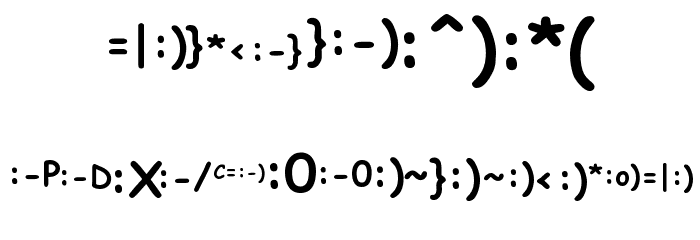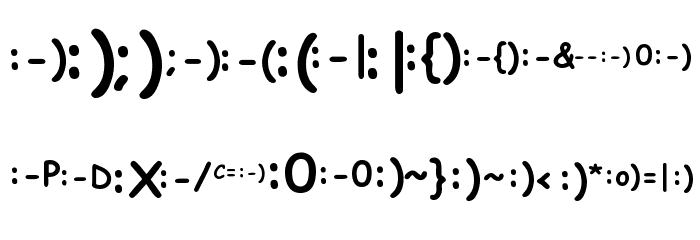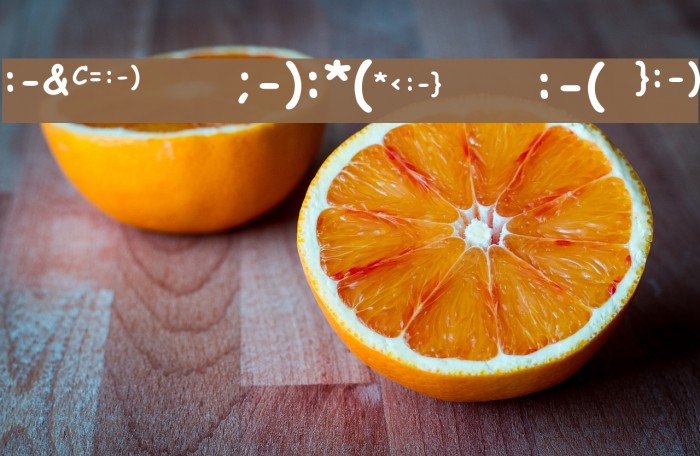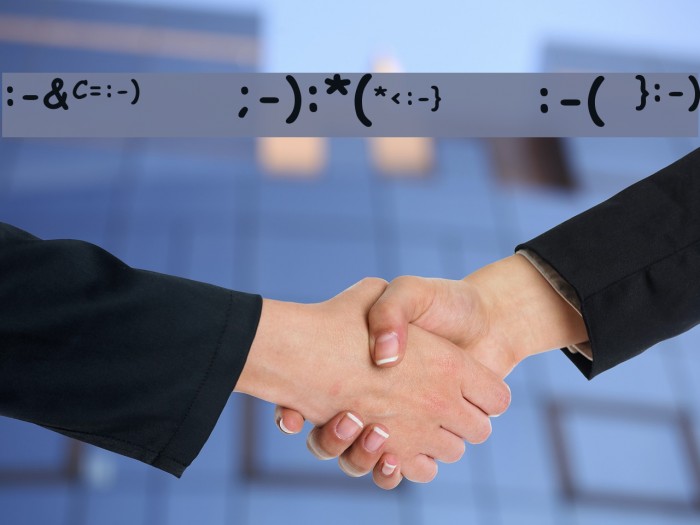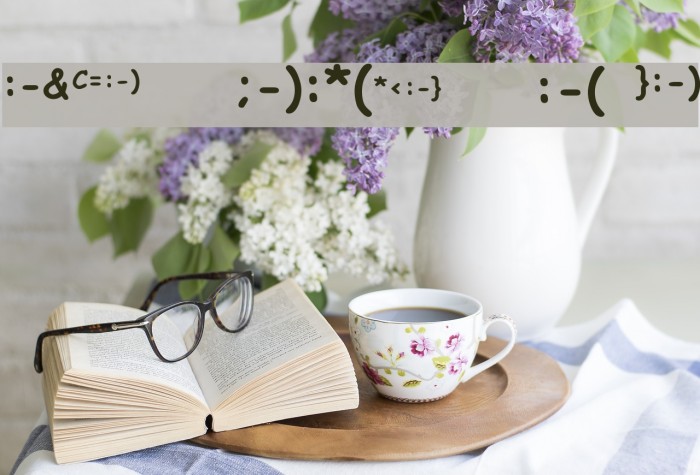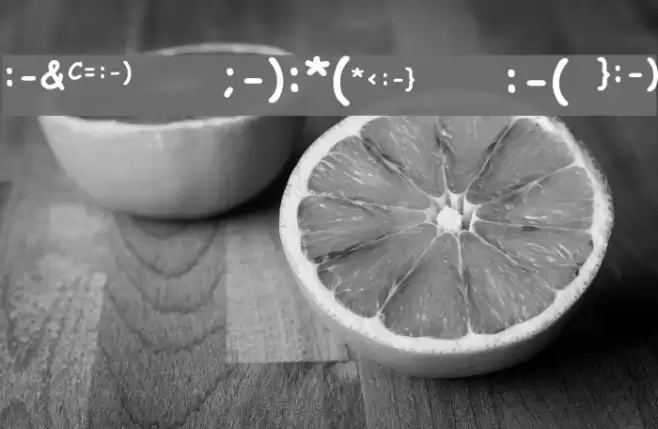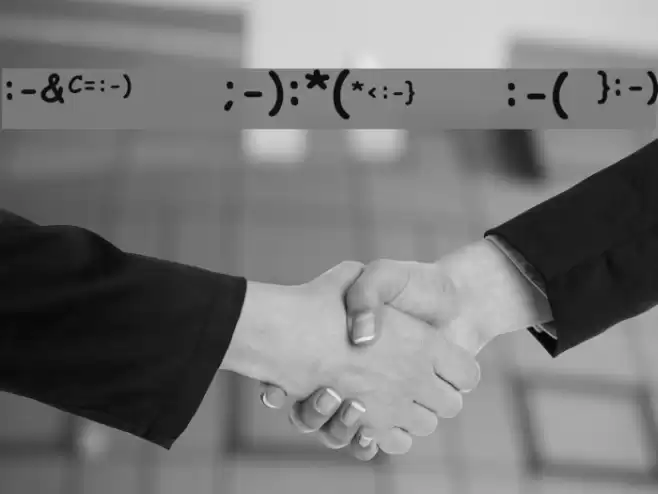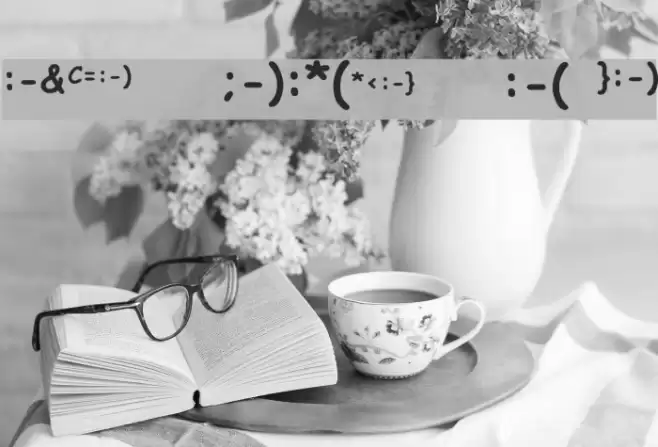
KR Deb's Emoticons Font
This font is a playful and expressive collection of emoticons, capturing a wide range of emotions and expressions through a combination of punctuation marks and symbols. The characters are designed with a bold and rounded style, making them easily recognizable and impactful. Each emoticon is crafted to convey a specific mood, from happiness and surprise to confusion and sadness. The font's design is consistent, with a uniform stroke width that adds to its cohesive appearance. It's perfect for adding a touch of humor and personality to digital communications, social media posts, and creative projects.
A bold, expressive emoticon font with a playful style.
- Proposed Projects: Ideal for social media graphics, digital stickers, chat applications, and creative design projects that require a fun and engaging touch.
- Overall Style: Playful, Modern
- Use Case: Digital communications, Social media, Creative projects